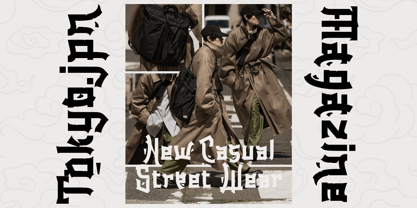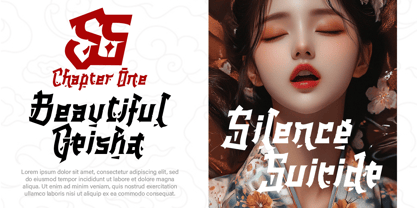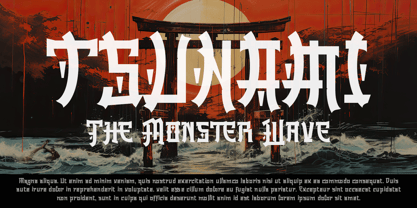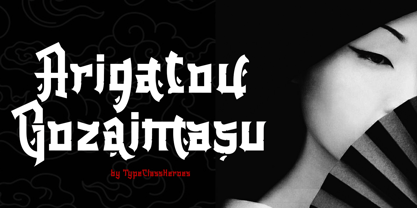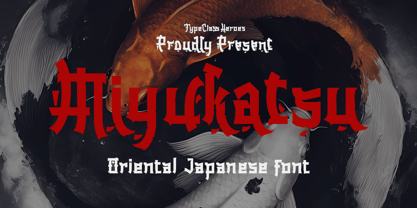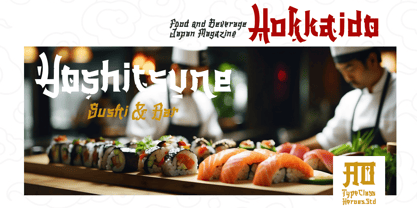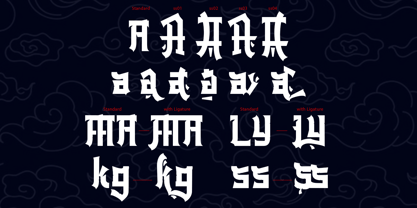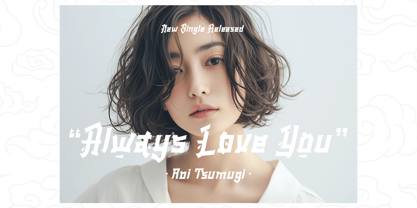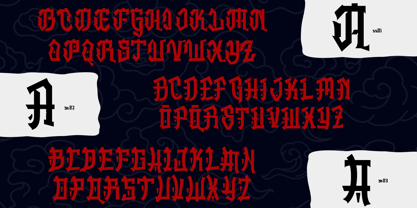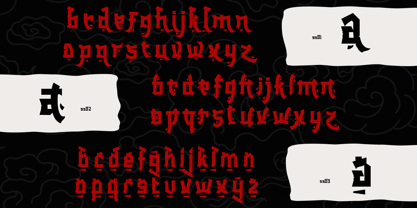
Miyukatsu
by TypeClassHeroes
The Miyukatsu Font Family was designed by Suandana ipandemade and published by TypeClassHeroes. Miyukatsu contains 2 styles and family package options. More about this family
Introducing Miyukatsu, this font features a modern interpretation of Japanese letter aesthetics in the Latin alphabet—strong, artistic, and full of character. The bold lines and sharp angles are reminiscent of the stroke structure of kanji. The broken shapes and geometric constructions resemble the strong, controlled stroke rhythm of Japanese calligraphy. The dynamic thick-thin contrast gives the impression of brushstrokes in shodo. This font is perfect for Japanese culture-themed posters, Japanese festival events, restaurant or product branding with a Japanese aesthetic, and designs with samurai, dojo, or Tokyo street-style themes.
Designers: Suandana ipandemade
Foundry: TypeClassHeroes